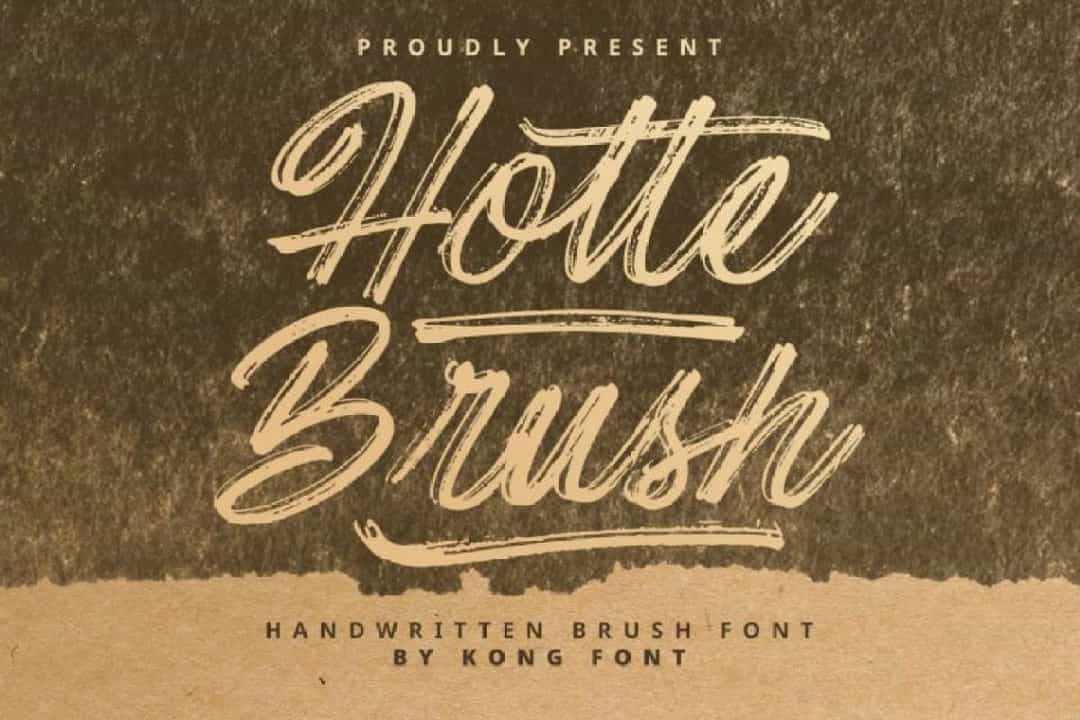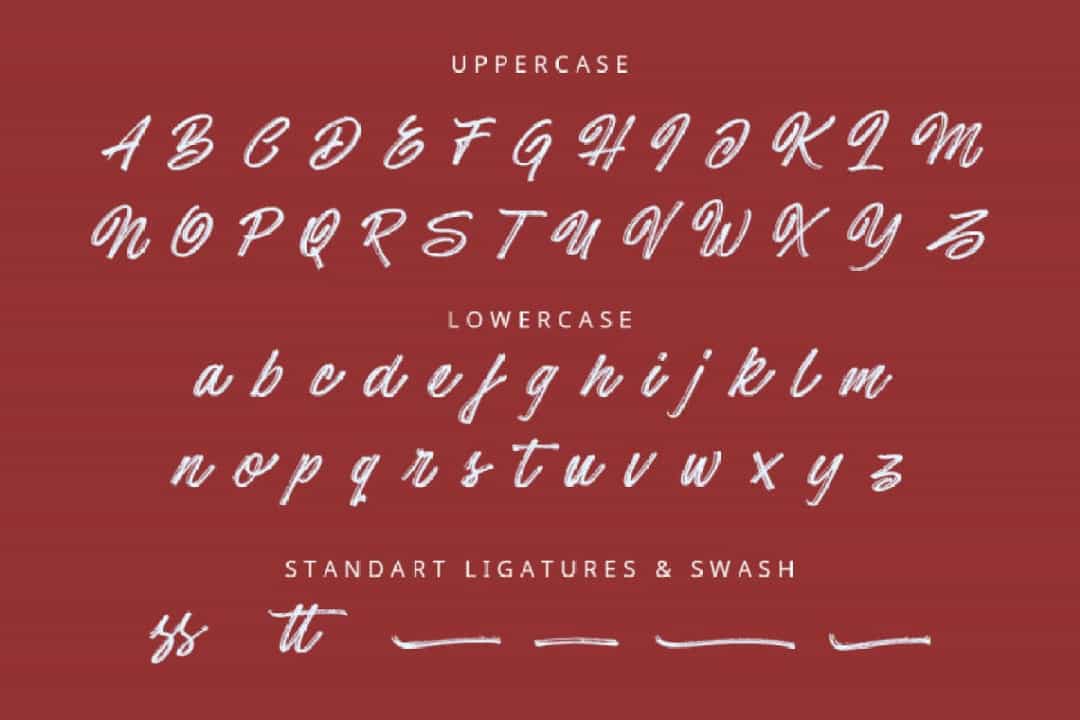
Discover Hotte Brush Font, part of the Brush collection—a versatile and unique font perfect for adding a personal touch to your projects. Download it for free and enjoy crafting designs with style, from invitations to social media posts. This font is available exclusively for personal use, giving you the freedom to create without limits. Unlock your creativity with Hotte Brush Font today!
Hotte is an engaging dry brush typeface with many letter variants to create an original and stunning style, making it an excellent choice for invitations, clothing titles, stationary designs, greeting cards logos packaging designs t-shirt posters and much more.